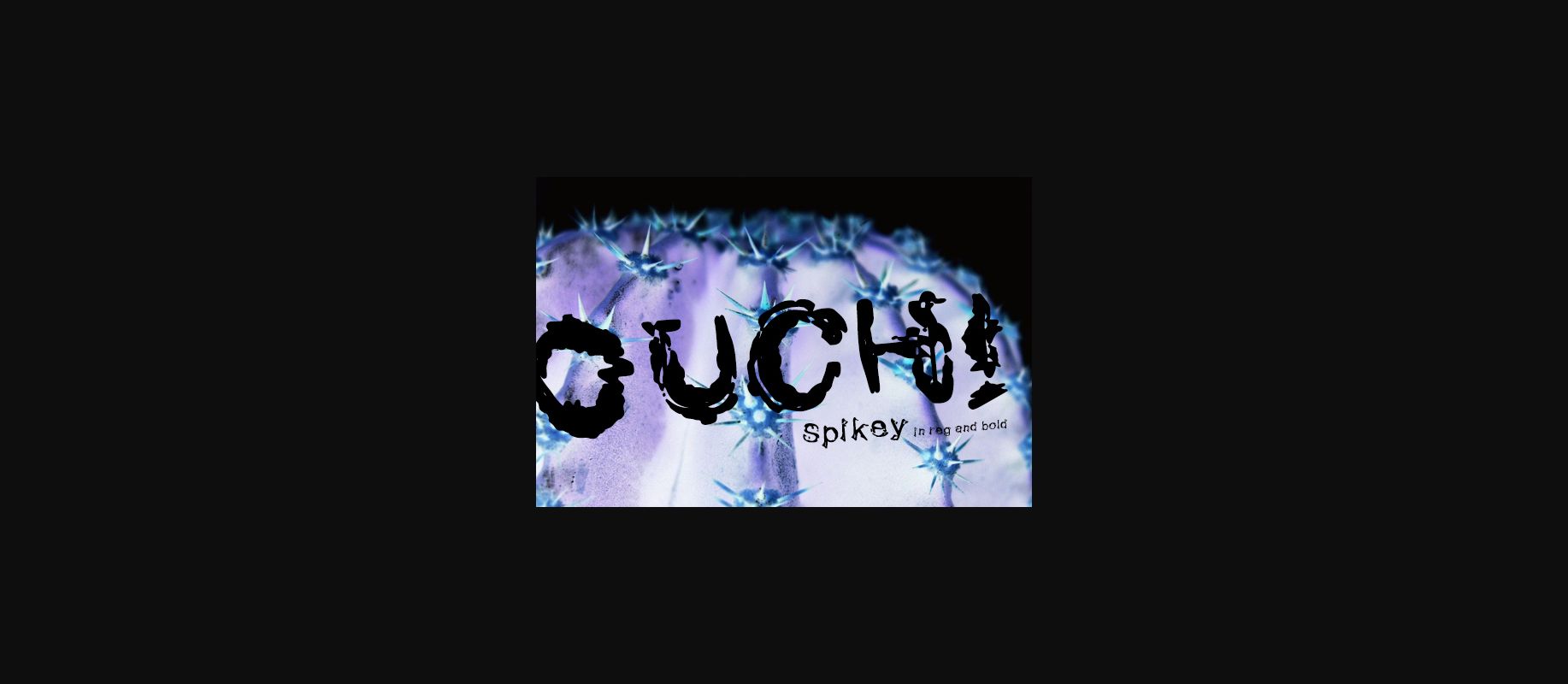
HomeDecorative FontsSpike Font Decorative Fonts Spike Font FacebookXPinterestWhatsApp 1 of 1 About Spike Font Ouch! This font can sting! For all your pointy, spiky and stingy needs. Comes as regular and bold. DOWNLOAD NOW People also explored Farming House Font Sabyan Font Wynka Font Sembilu Script Font Corynette Font Simply Harmony Font Hello Washington Font Recovery Rockyoletta Font 307 0 TagsSpikeSpike Font Previous articleBams Glitch V2 FontNext articlePiece by Broken Piece Font LEAVE A REPLY Cancel reply Comment: Please enter your comment! Name:* Please enter your name here Email:* You have entered an incorrect email address! Please enter your email address here Website: Save my name, email, and website in this browser for the next time I comment. Personal Use Free Ontel Personal Use Free Read more about this font Bajt Rounded Personal Use Free Read more about this font Charletto Personal Use Free Read more about this font Blessed Font Personal Use Free Read more about this font BLOG Free vs Paid Fonts: Why Investing in Premium Fonts Is Worth It Free vs Paid Fonts: Why Premium Fonts Are Worth It in 2025 The debate of free vs paid fonts continues in the design world. While... Best Fonts for T-Shirt Design – Top 2025 Picks Using Fonts in Digital Marketing: Tips to Strengthen Your Brand Identity Exploring Font Trends